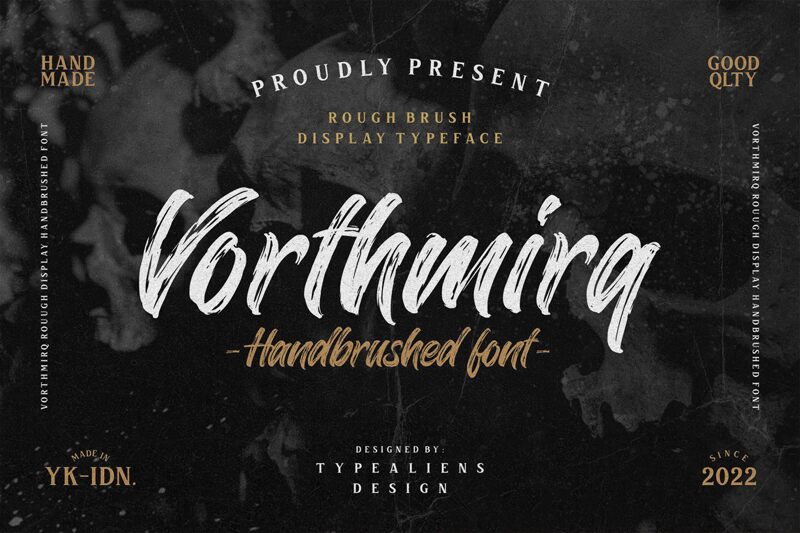
Vorthmirq, crafted by the talented ilhamtaro, is a brush-style font that exudes dynamism and artistic flair. Its strokes are reminiscent of swift movements of a painter's brush, giving it a handcrafted feel that's both personal and expressive. The condensed nature of Vorthmirq lends it an energetic density, making each word seem to leap off the page with purpose and vigor.
This font's aesthetic appeal lies in its ability to balance spontaneity with sophistication-a perfect choice for projects that require an intimate yet impactful touch. Vorthmirq is particularly suited for creative branding, compelling advertising campaigns, or any design space that benefits from a stroke of individuality and boldness without sacrificing elegance.